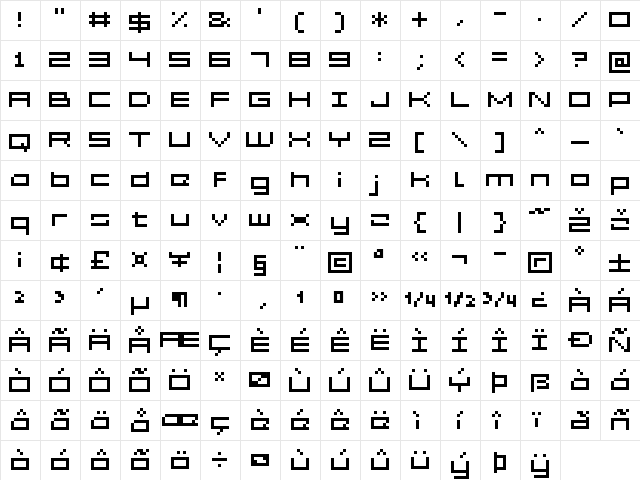
Grixel Acme 5 Wide Regular
Grixel Acme 5 Wide takes a measured approach to typography — its balanced proportions and neutral character make it a reliable workhorse for both digital and print work.